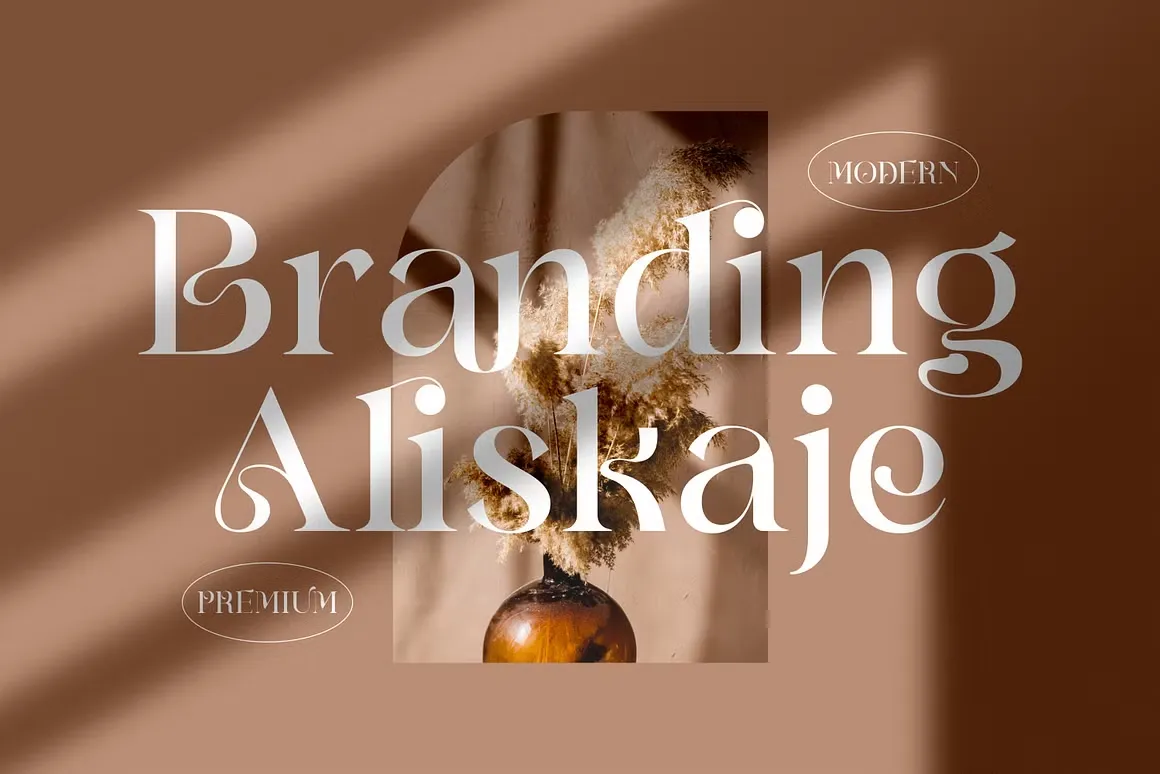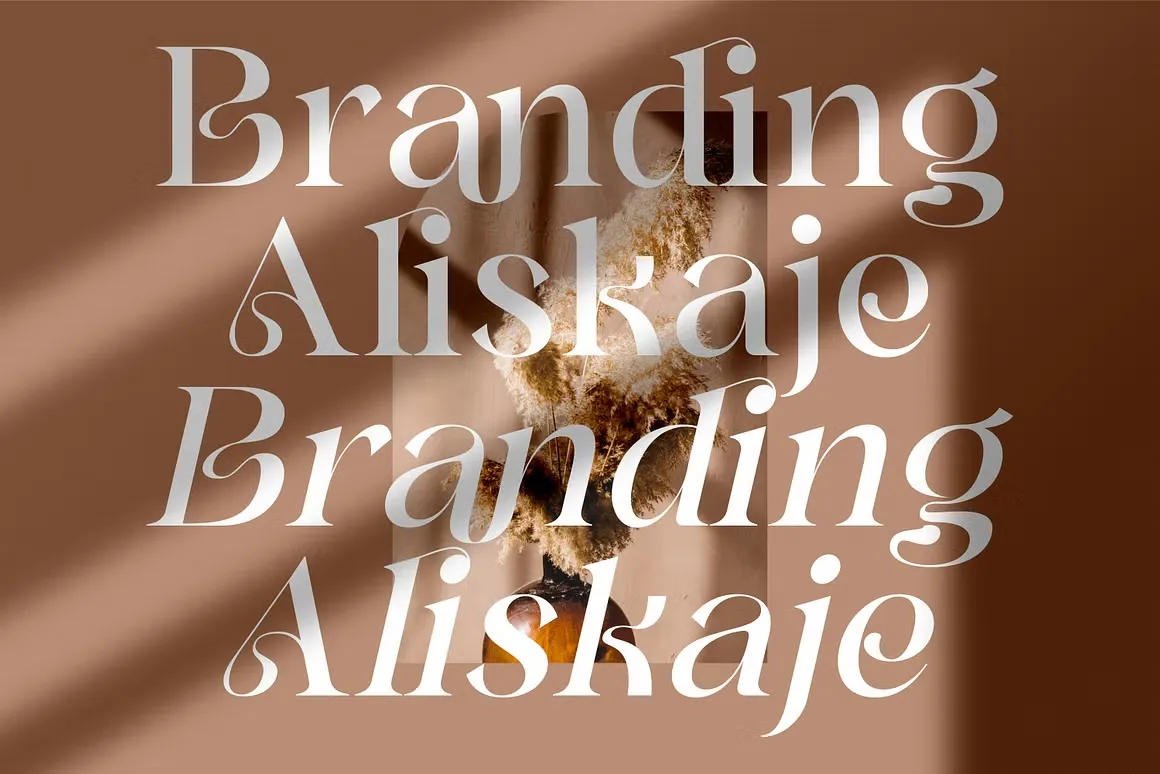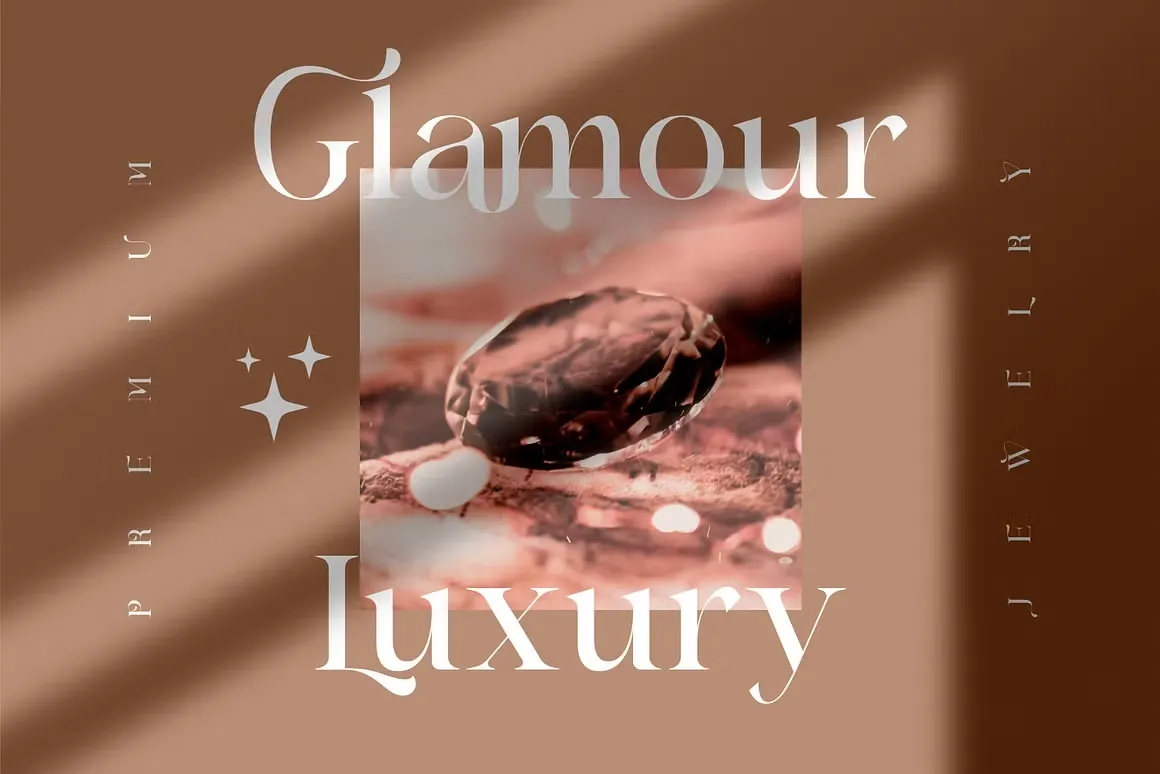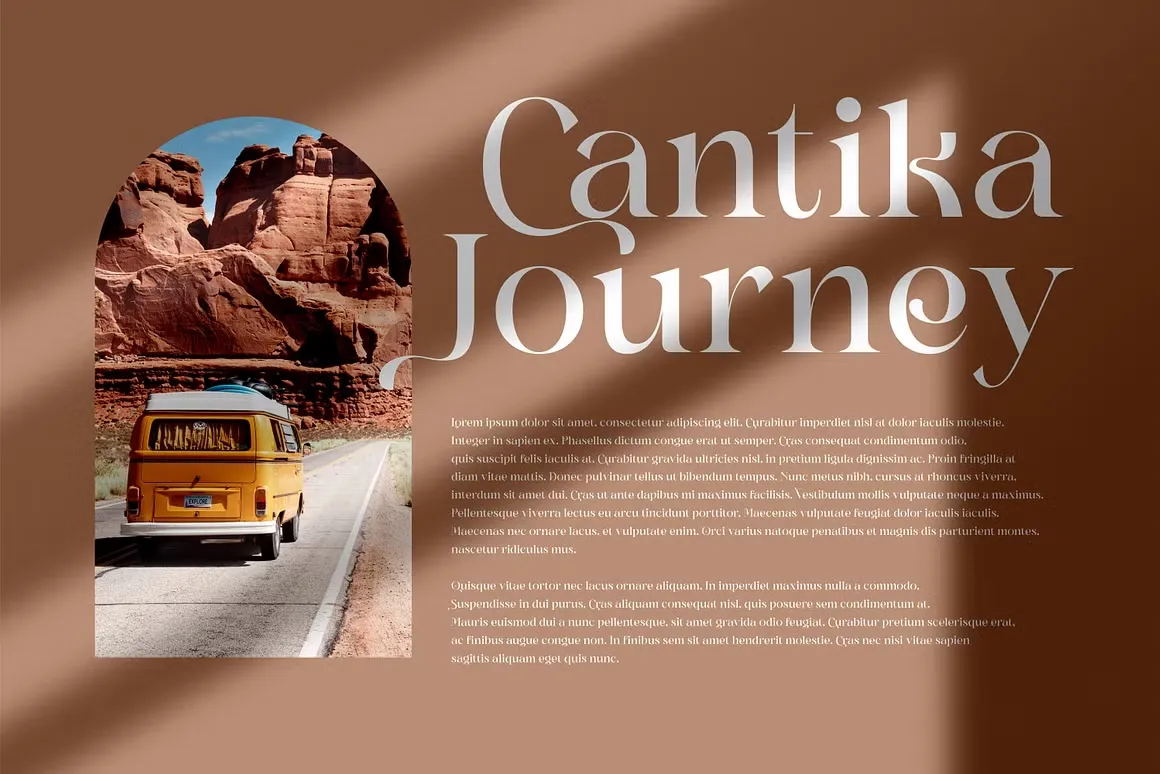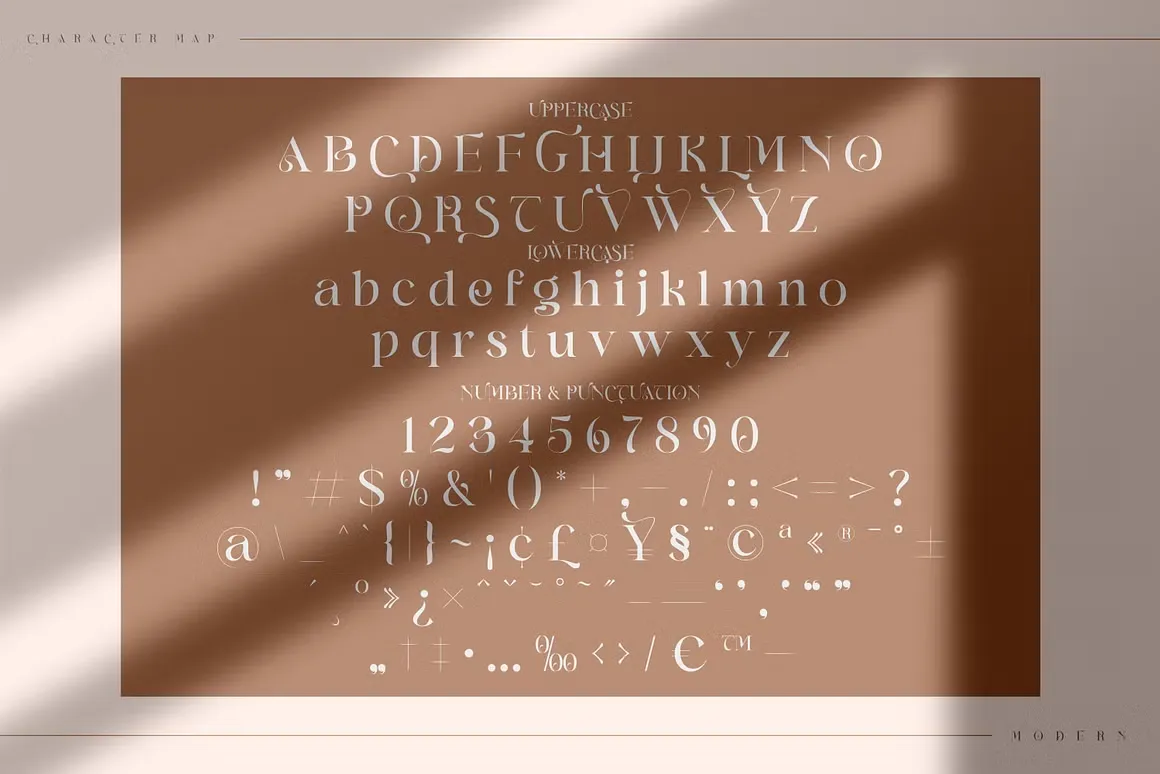
About Branding Aliskaje Font
I’m a typographer and graphic designer who spends hours exploring typefaces for branding projects. Recently, while working on a luxury design, I came across the Branding Aliskaje Font. Its modern serif style immediately caught my eye. The font’s balance of elegance and edge fit the project perfectly, so I decided to test it out on a logo design. The results exceeded expectations. Since so many designers are always searching for a unique serif font that blends classic beauty with a modern look, I thought a real review could be helpful. This is how I discovered and used it.
Branding Aliskaje Font and the Designer
The Branding Aliskaje Font is a serif typeface created by Storytype Studio, a name that’s become known for stylish fonts built with precision. This typeface stands out because it blends modern style with traditional serif roots, giving it both authority and charm. The font family includes regular and italic styles, giving designers more flexibility when crafting layouts. Storytype Studio designed this with the idea that a typeface is perfect not only for print but also for digital use.
Its clean display and luxury tone make it ideal for brands that want to stand apart. The branding aliskaje modern serif font is often seen in high-end media, such as magazines, fashion brand campaigns, and clothing tags. Storytype Studio specializes in fonts that elevate projects with a unique style, and this one is no exception.
Features of Branding Aliskaje Font
The Branding Aliskaje Font includes a wide set of features that make it practical for many kinds of design work. Its serif display font family has two styles: regular and italic. This gives you the ability to create contrast while keeping a cohesive look across brand materials. The ligatures and stylistic alternatives give designers creative freedom, ensuring no two projects look the same.
The font is clean and modern, but it also carries personality. Its letters flow with a subtle elegance that works well for quotes, magazine headlines, or a fashion brand identity. Each stroke has been carefully shaped, making the typeface perfect for an elegant and luxury logo. Whether it’s a bold letter or a softer italic, the design language remains consistent.
The Branding Aliskaje Font Free Download option makes it accessible for personal projects, but its design power truly shines in professional branding. It’s ideal for fashion brands that want a serif font with a modern edge. If you’re designing magazine spreads, this font family gives you crisp titles and elegant subheadings that demand attention. The serif display font family has 2 styles that make it adaptable whether you need a bold headline or a refined quote.
For clothing lines, the font creates a luxury logo that feels premium without being overwhelming. Its clean lines and unique style suit product packaging, labels, and even digital graphics. Media companies can also benefit because the typeface is perfect for clear, stylish displays on both print and screen. For typographers, the font is perfect for experimenting with layouts, pairing modern serif design with similar fonts for balance. Graphic designers often look for typefaces that are stylish yet flexible, and this one delivers.
Whether you’re crafting a personal project, a brand identity, or a full advertising campaign, this serif font adapts. Its versatility makes it stand out in a crowded market of free fonts, giving both personal and professional projects a polished finish.